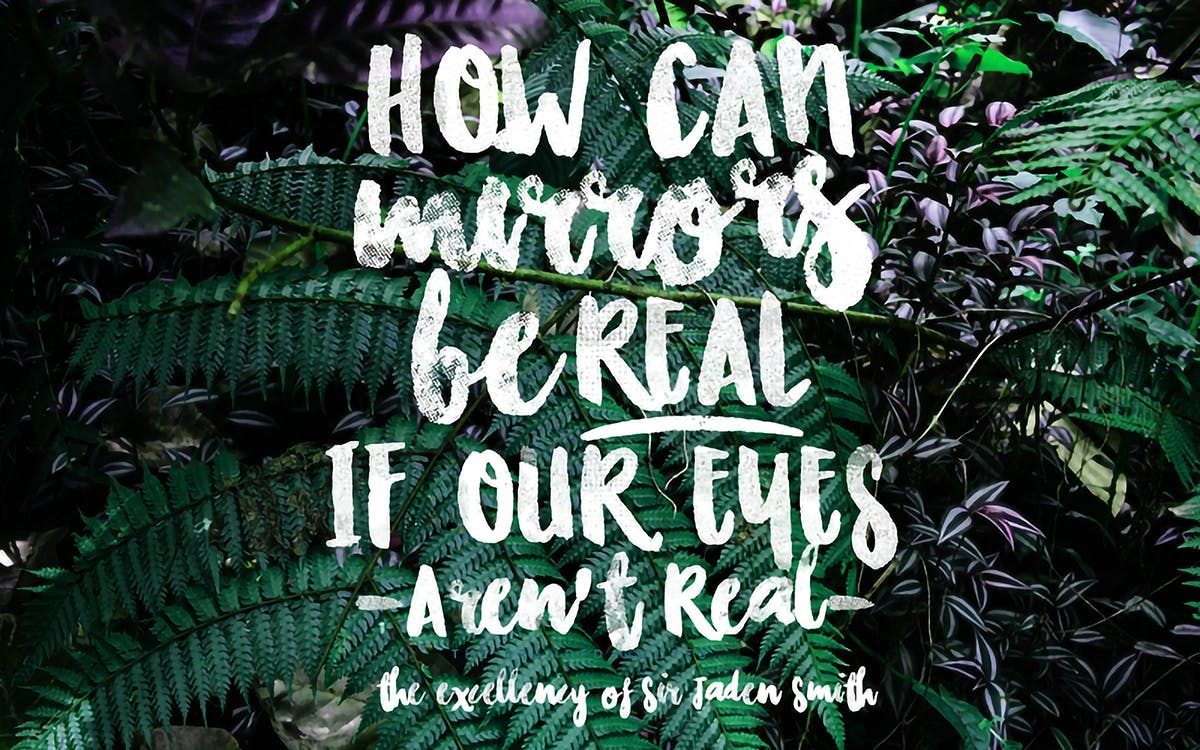
Chasing Embers Free Demo
Chasing Embers Free Font is a brush font that has ink/watercolor texture of its own. No need to overlay anything, just throw it over your photographs and projects! This font is a camouflage to whatever background you lay under it. Chasing Embers created for your brand name, identity, photographs, blog headers, album art, greeting card, or anything you think would fit perfect!